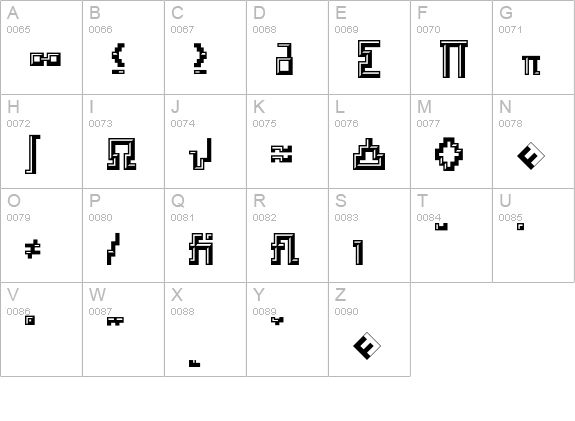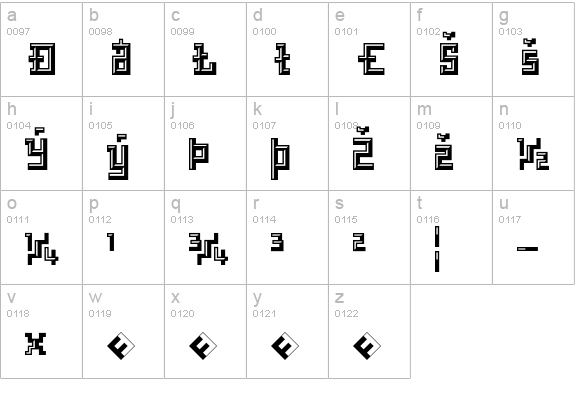
Introducing Archian-PlasticExpert font, a modern and sleek typeface designed for a wide range of creative projects. With its clean lines and unique aesthetic, this font exudes sophistication and professionalism. The perfect choice for branding, logos, packaging, and more, Archian-PlasticExpert font adds a touch of elegance to any design. What sets Archian-PlasticExpert font apart is its versatility and adaptability, making it suitable for a variety of design styles and applications. Whether you're working on a corporate project or a creative venture, this font is sure to elevate your work to the next level. One of the best things about Archian-PlasticExpert font is that it is available for free download at FontsMarket.com. This means you can easily access this high-quality font and incorporate it into your projects without any additional cost. Don't miss out on the opportunity to enhance your designs with the timeless appeal of Archian-PlasticExpert font. Download it today and let your creativity shine!